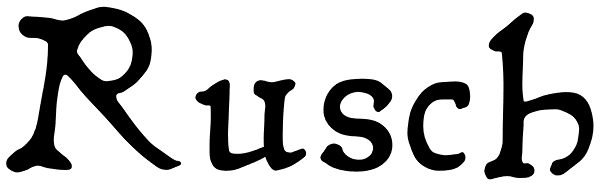
Rusch
Adolf Rusch von Ingweiler, was in the 19 th century known mysteriously as the “R'' printer. He was the first printer North of the Alps to introduce the new Roman style of type known now as Antiqua. He was active in the city of Strasbourg from around...